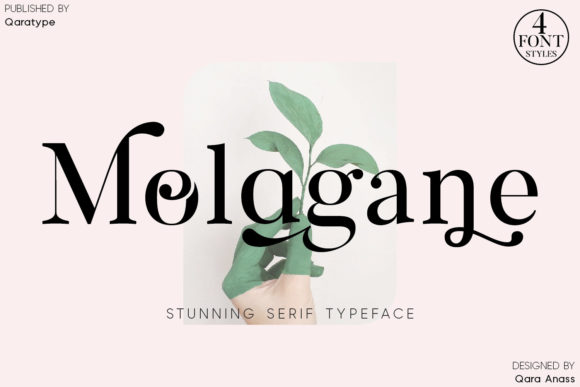
Welcome to the realm of typography, where words dance upon the screen, captivating hearts and minds. Allow me to introduce you to Molagane Font, a masterpiece of elegance and modernity. Crafted with meticulous care by Crafty Files, this serif font enters the digital world as a vibrant force, ready to transform your creative visions.
Imagine your Instagram bio, the gateway to your online persona, adorned with the bold strokes of Molagane. Its sleek minimalism invites curiosity, hinting at a world of sophistication beyond the surface. Let your words bask in the limelight, attracting followers with a visual feast that speaks volumes about your taste and style.
As you explore the depths of Molagane's character set, you'll discover a treasure trove of ligatures, alternative glyphs, and ornaments. These intricate details are the lifeblood of visual storytelling, allowing you to weave enchanting tales with each keystroke. Unleash your creativity and watch as your designs blossom into works of art.
Molagane's versatility transcends boundaries, adapting seamlessly to both grand and intimate projects. Whether you're crafting captivating headlines, weaving compelling blog posts, or designing awe-inspiring logos, this font will elevate your creations to new heights. Its adaptability knows no limits, making it the perfect companion for a myriad of design endeavors.
With Molagane by your side, your creative ideas will ignite with renewed vigor. Experience the sheer joy of watching your designs leap off the screen, captivating audiences with their grace and allure. Discover the power of typography and let Molagane guide you on a journey of self-expression and boundless creativity.
Join the ranks of those who embrace the transformative power of Molagane, and witness the magic unfold before your very eyes. Elevate your digital presence, let your words dance with elegance, and let your designs leave a lasting impression on the world.